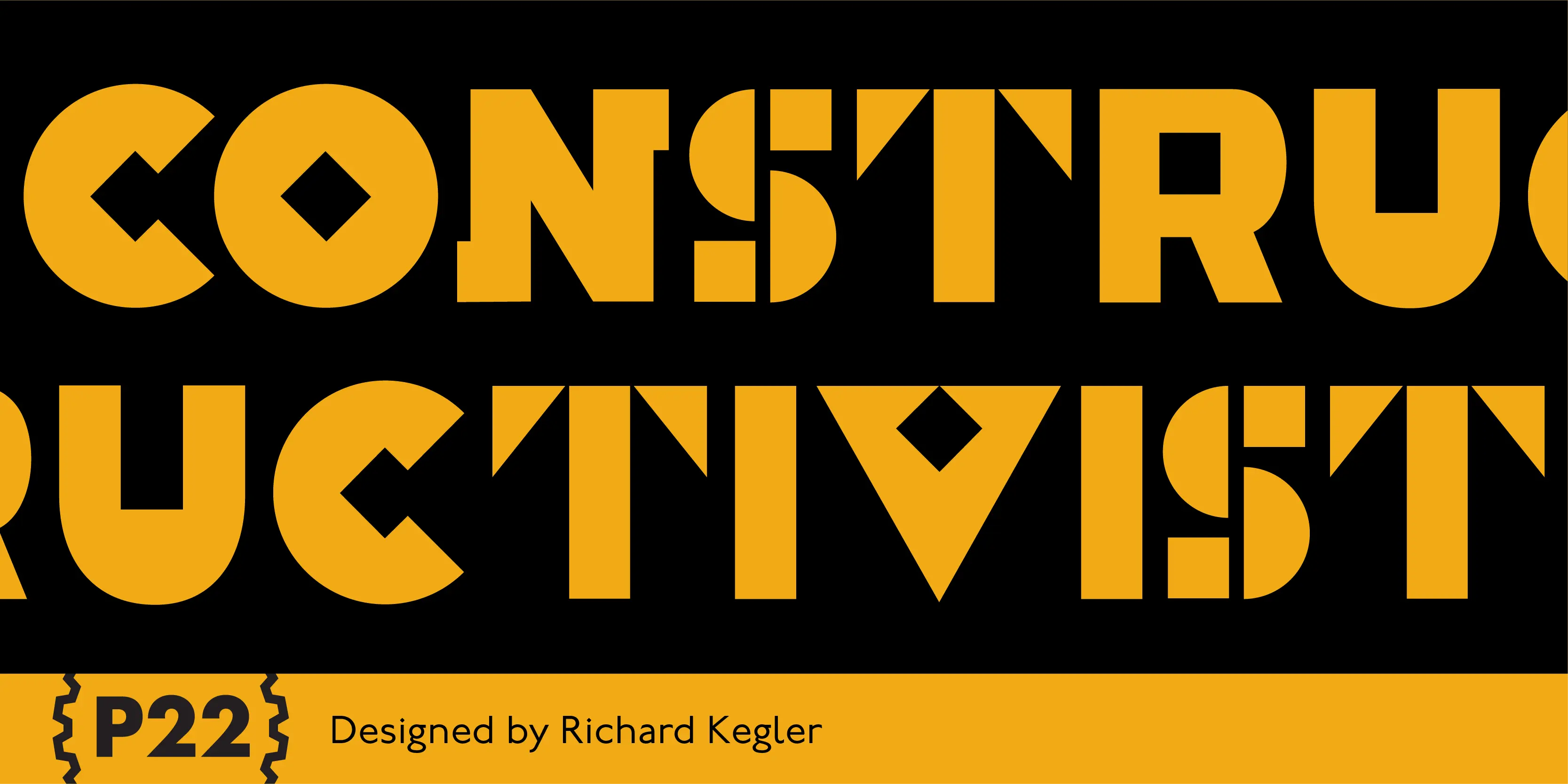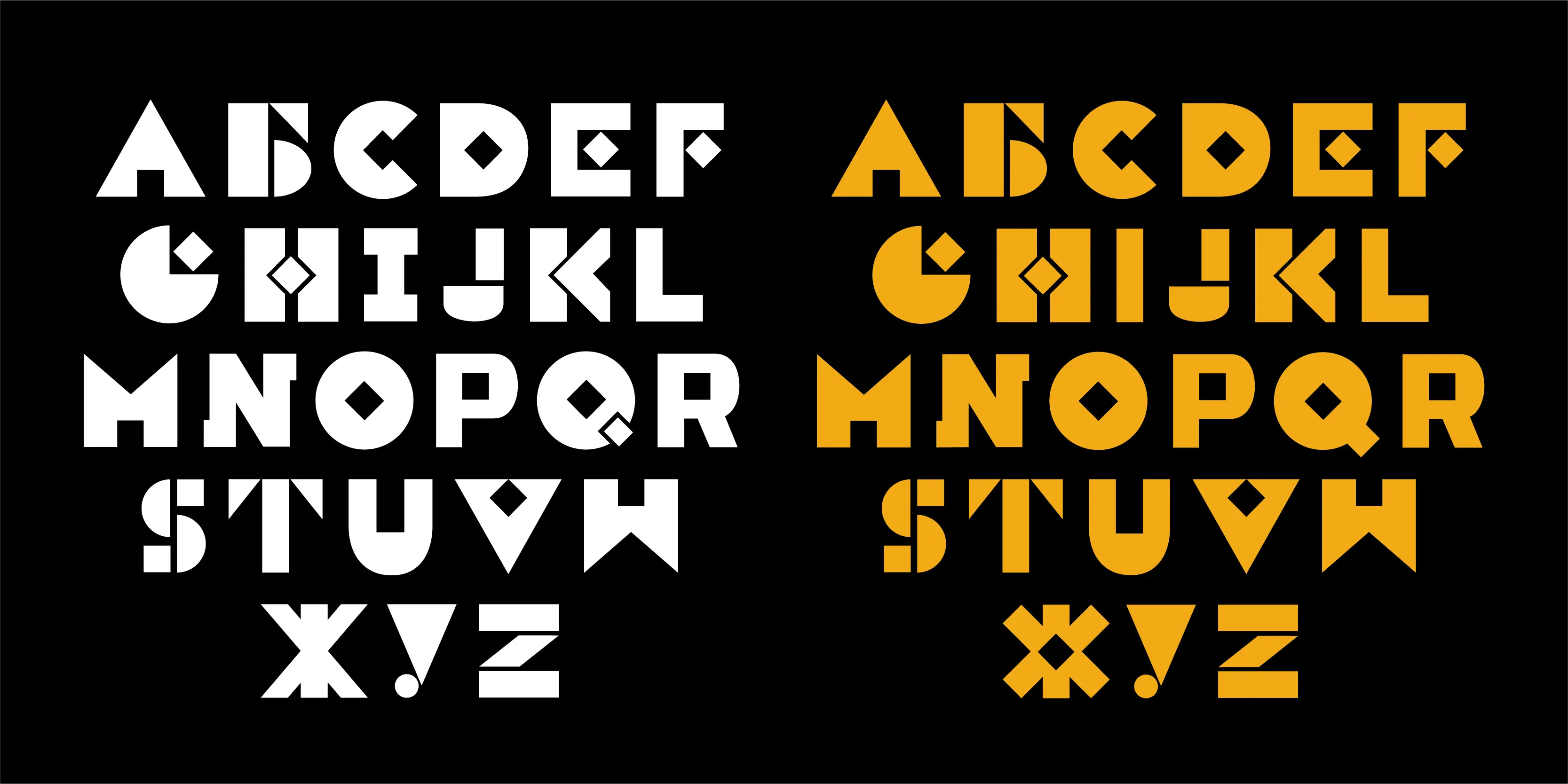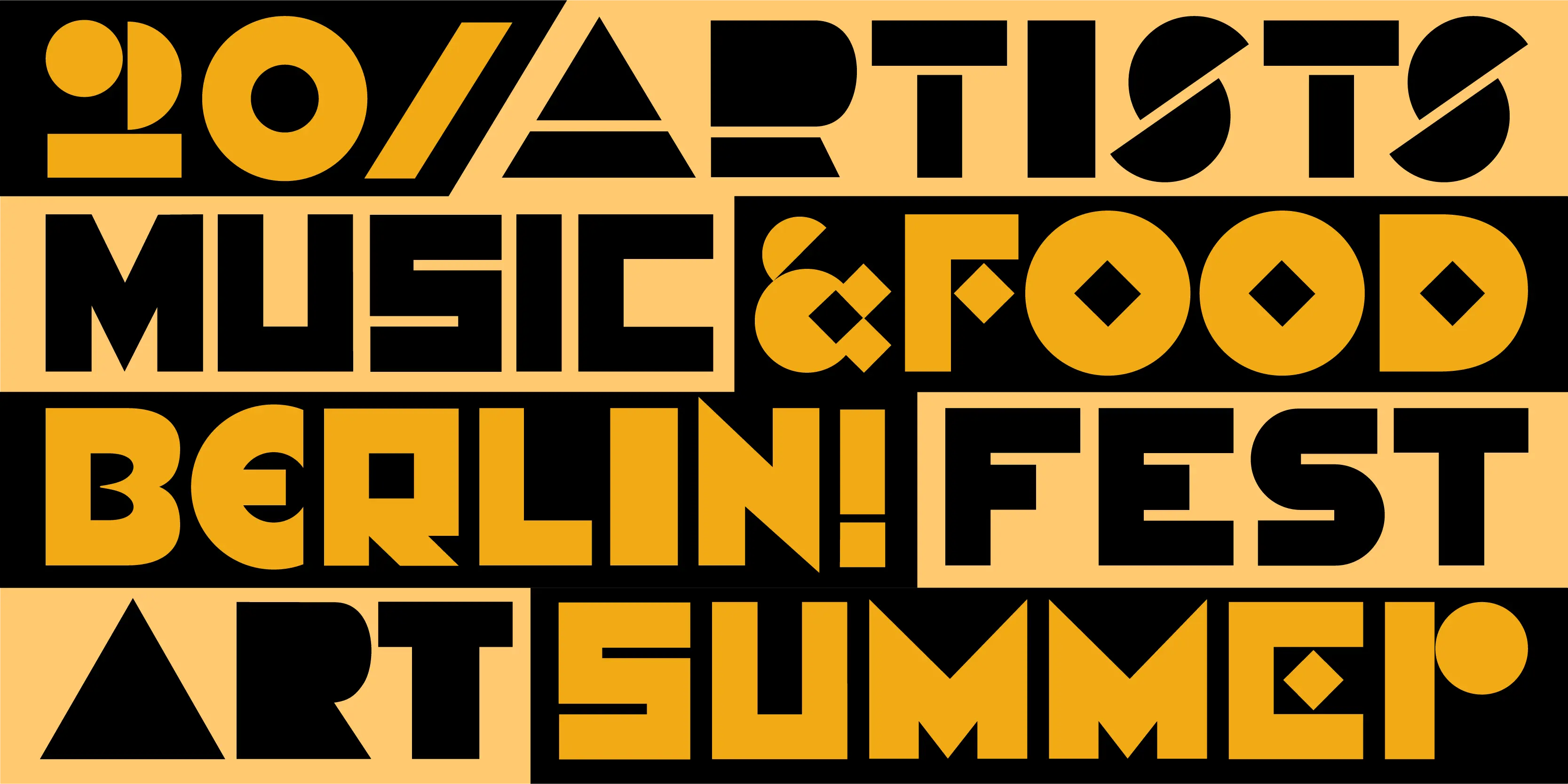
Constructivist
Font mavens of the world unite! Constructivist recreates the bold graphic design of early Soviet Era Russian Artists such as Rodchenko and Popova. P22 Constructivist Set font system which combines the 5 font styles and adds OpenType features such as alternate Latin and Cyrillic letterforms, full Central European Language support and changes in line spacing and optical sizing of some characters for improved harmony. In all over 1200 Glyphs for maximum flexibility and design choices. Seize control of the means of desktop production with this revolutionary font collective!